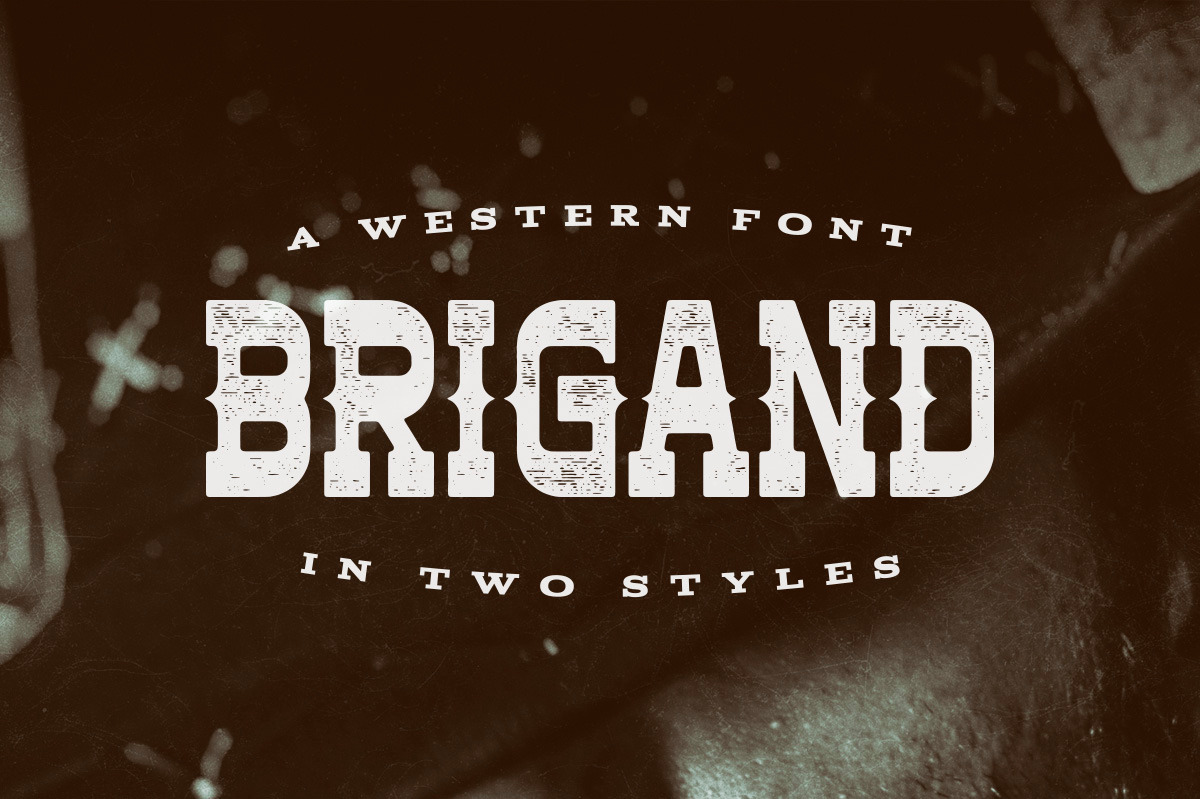
Brigand Typeface
Brigand is a typeface inspired by Western films. It includes English uppercase letters, numbers and basic punctuation.
The typeface comes in rough and regular styles.